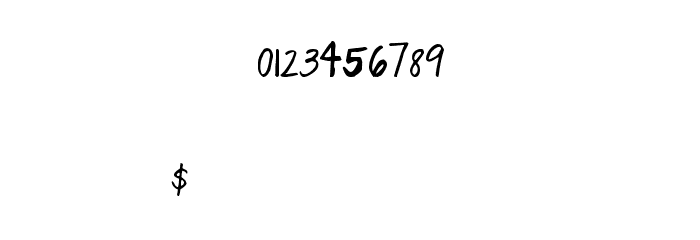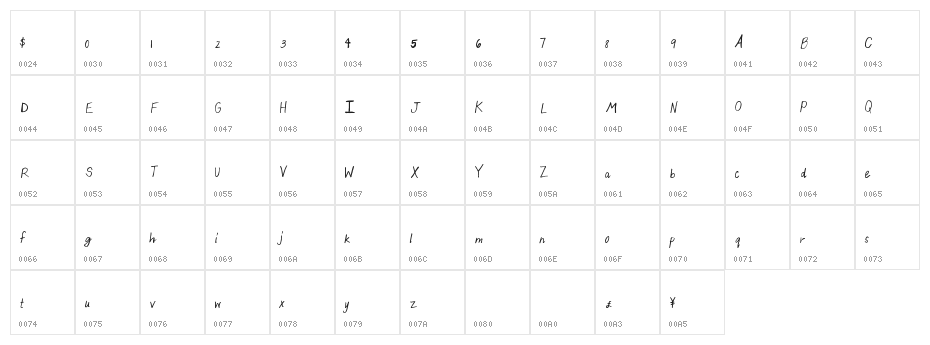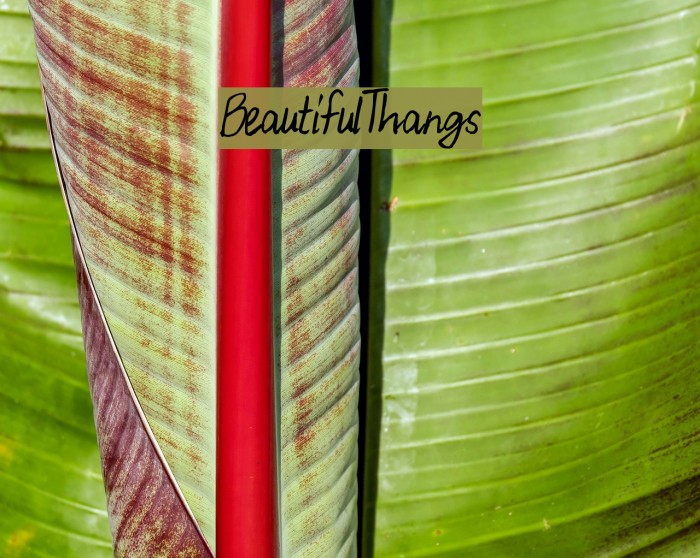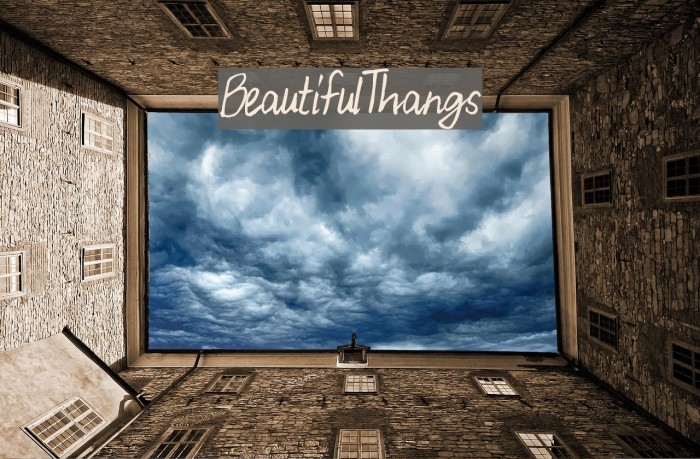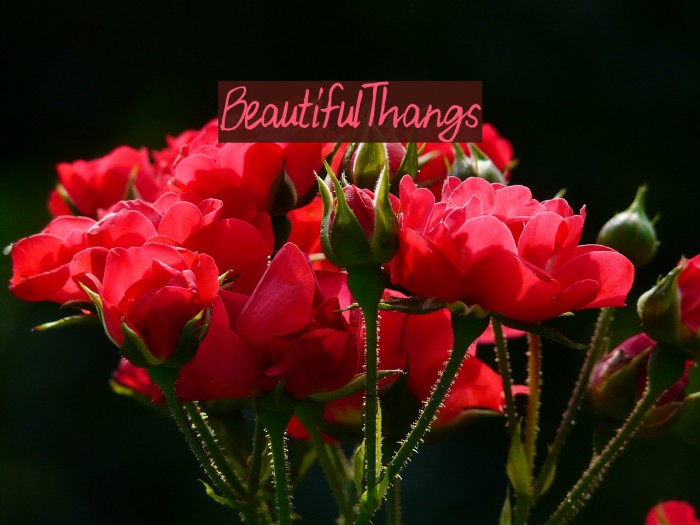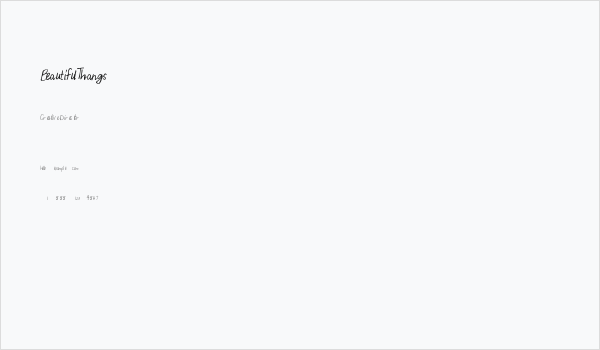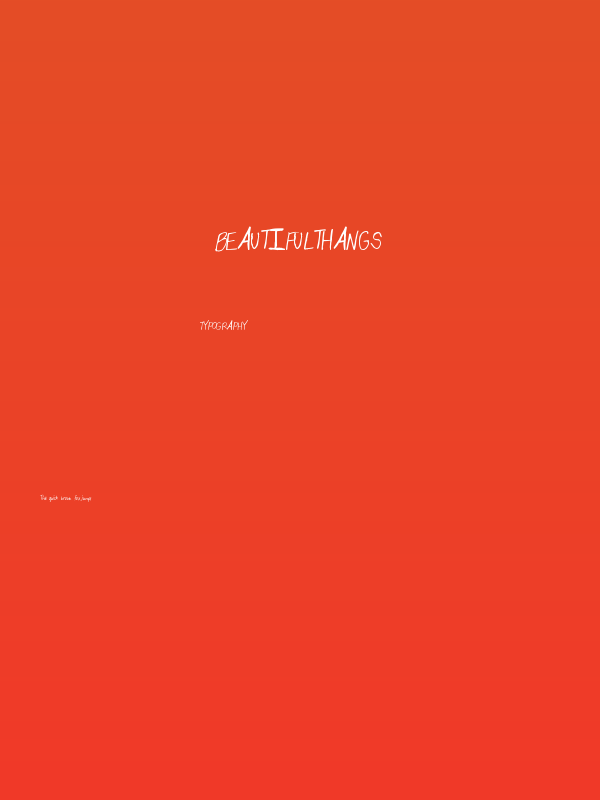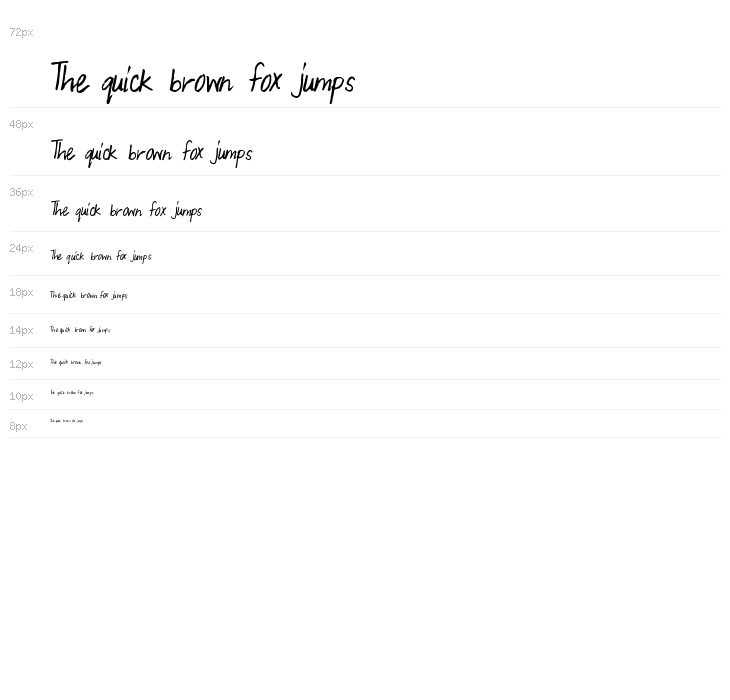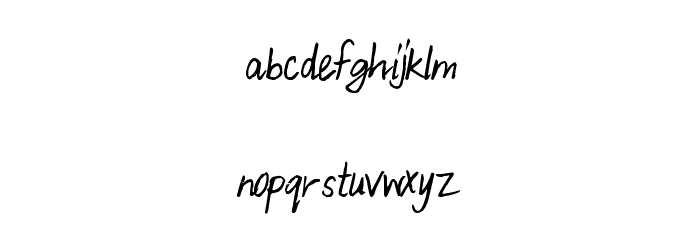
BeautifulThangs Font
BeautifulThangs Description
This font features a playful and casual handwritten style, characterized by its irregular strokes and slightly slanted appearance. The uppercase letters are bold and prominent, while the lowercase letters maintain a consistent flow, enhancing readability. The numerals are distinct and easy to differentiate, adding to the font's versatility. Special characters are included, maintaining the same whimsical style. The overall design is informal yet clear, making it suitable for a variety of creative projects.
Overall StyleCasual
Use CaseLogos, Headlines, Informal Text
Proposed ProjectsIdeal for greeting cards, invitations, personal branding, and creative social media graphics.